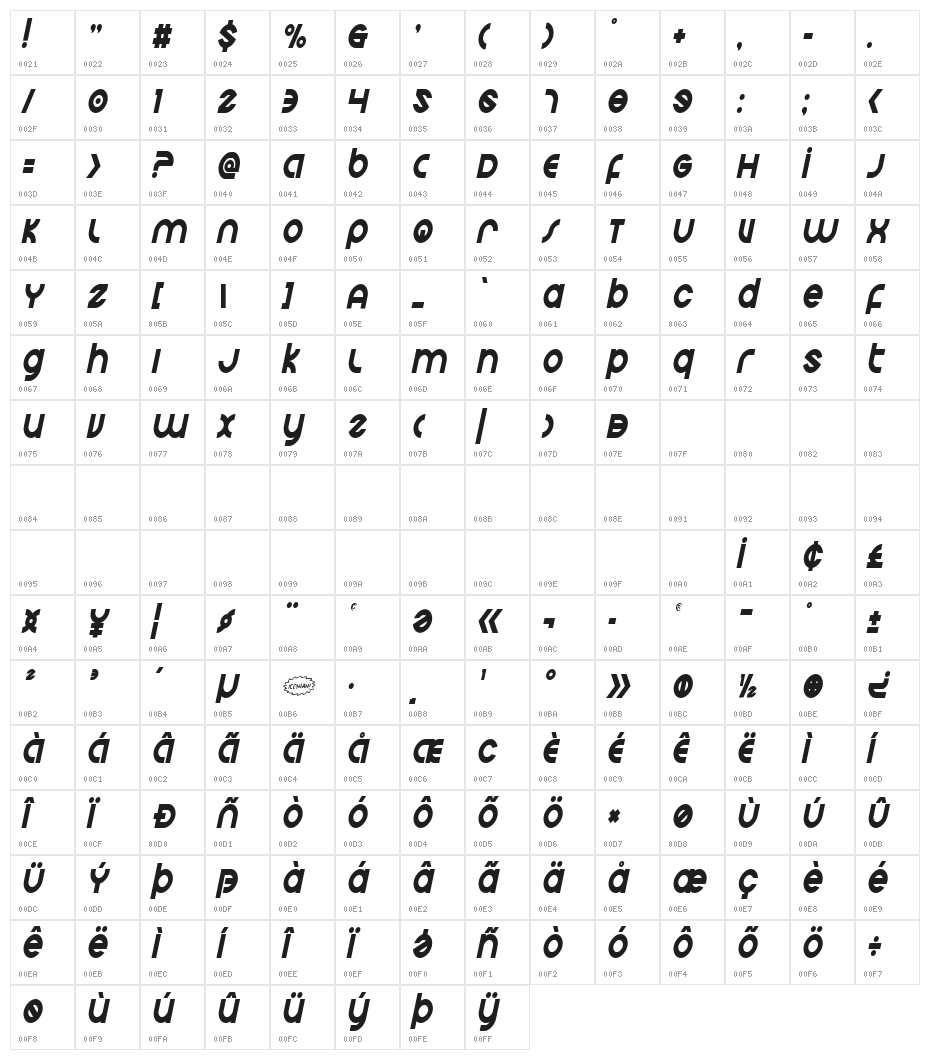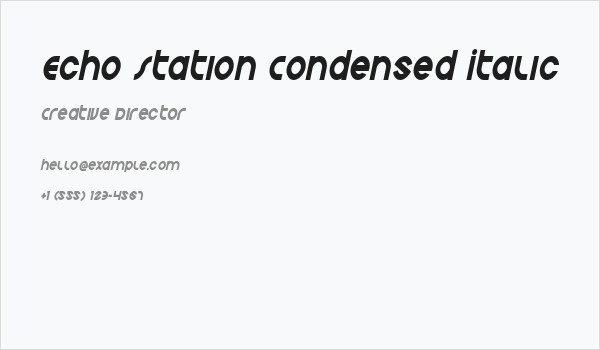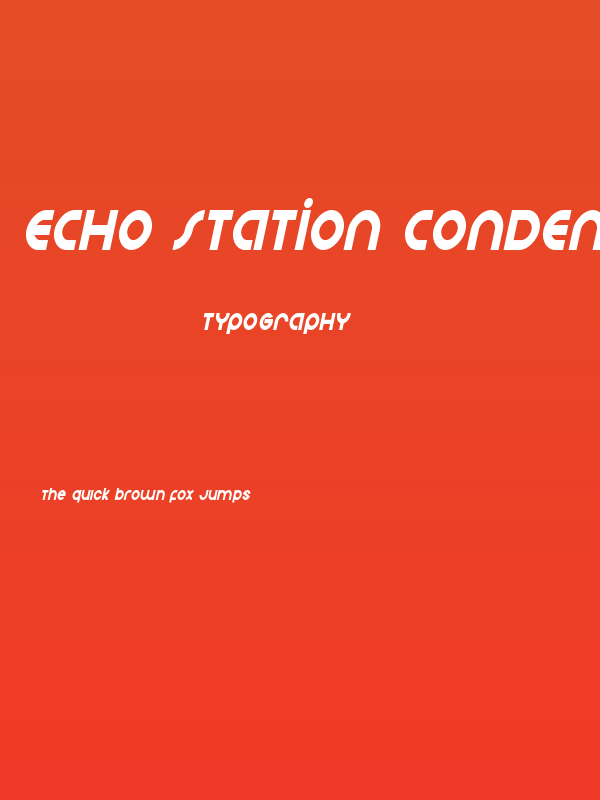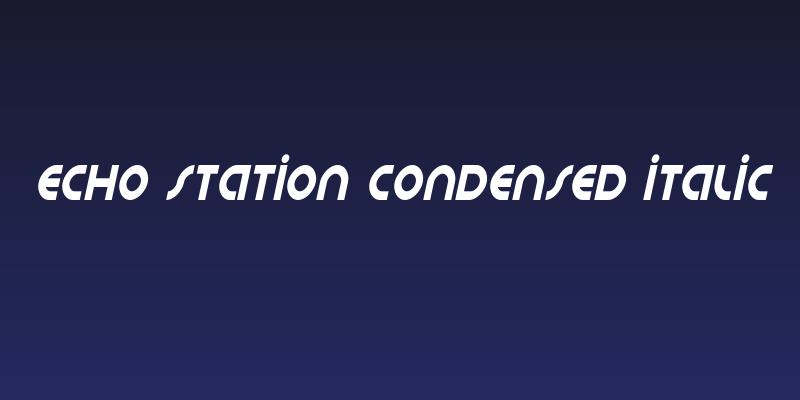
Echo Station Condensed Italic Font
Echo Station Condensed Italic Description
This font features a dynamic and modern design with a condensed and italicized style. The characters are bold and have a distinct forward slant, giving a sense of motion and energy. The strokes are smooth and rounded, with a consistent thickness that maintains readability while adding a unique flair. The numbers and special characters are designed to match the overall aesthetic, ensuring a cohesive look across all text elements. This font is ideal for projects that require a contemporary and eye-catching appearance.
| Proposed Projects | Ideal for branding, advertising, posters, and any project needing a modern and energetic typeface. |